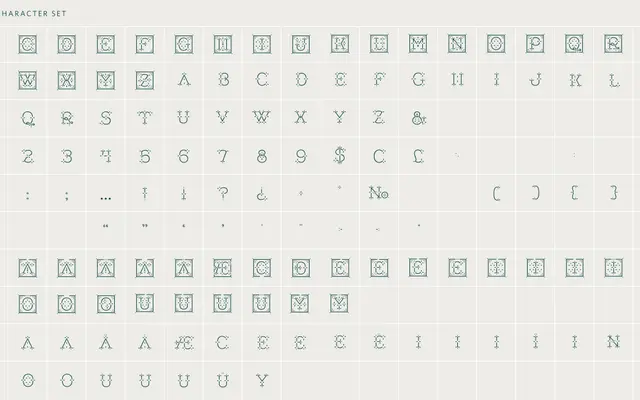
Minot
A three-style layered display typeface by Jessica Hische, designed for chromatic headline work across stationery, labels and celebratory print.
Released in three complementary styles, Outline, Fill and Box, Minot is built for stacking into multi-colour compositions rather than use in isolation. The name draws from the French word for child, nodding to its natural fit for baby announcements and occasion stationery alongside wedding invitations and wine labels. Alternate characters extend its decorative range and Hische provides a PDF guide for working with the font's layering system.
A layered display typeface designed for multi-colour headline use, with three stylistic variants (Outline, Fill, Box) intended to be overlaid for chromatic effects. Its script-adjacent decorative character places it firmly in the display category.